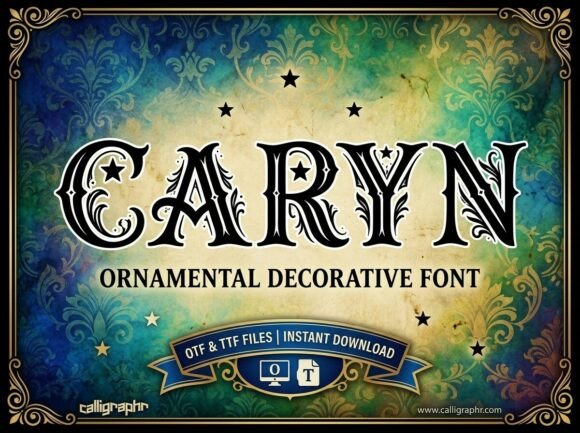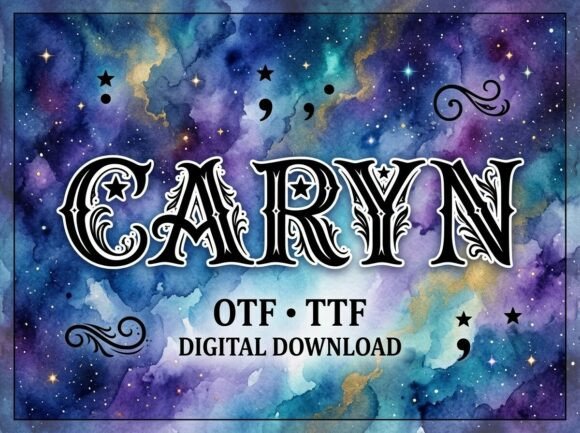
Introducing Caryn Font: A Stunning Decorative Display Font
Are you tired of using the same old fonts for your designs? Look no further than Caryn Font, a unique and artistic display font that’s sure to turn heads. This font is designed to be the center of attention, featuring bold and eye-catching elements that will elevate your designs to the next level.
A Font with a Strong Visual Personality
Caryn Font is a decorative display font that boasts a strong visual personality. Its unique artistic elements make it perfect for creators who want to break away from the ordinary and add a touch of elegance to their designs. Whether you’re working on bold headlines, artistic logos, or creative packaging, this font is versatile enough to deliver a professional and polished finish.
Caryn Font is perfect for designers and crafters who want to add a touch of sophistication to their work. Whether you’re creating:
- Logos: Use Caryn Font to create stunning logos that will set your brand apart from the competition.
- Headlines: Make a bold statement with Caryn Font’s unique and eye-catching headlines.
- Packaging: Add a touch of elegance to your packaging designs with Caryn Font’s sophisticated and polished finish.
- Social Media Graphics: Use Caryn Font to create stunning social media graphics that will grab attention and drive engagement.
Why Choose Caryn Font?
So why choose Caryn Font over other fonts on the market? Here are just a few reasons:
- Unique Design: Caryn Font features a unique and artistic design that’s sure to turn heads.
- Versatility: This font is versatile enough to be used for a wide range of design projects, from logos and headlines to packaging and social media graphics.
- Professional Finish: Caryn Font delivers a professional and polished finish that’s perfect for designers and crafters who want to create high-quality designs.
Tips for Using Caryn Font
Here are a few tips for using Caryn Font in your designs:
- Use it sparingly: Because Caryn Font is a decorative display font, it’s best to use it sparingly to avoid overwhelming your design.
- Pair it with a simple font: Pair Caryn Font with a simple font to create contrast and add visual interest to your design.
- Experiment with colors: Don’t be afraid to experiment with different colors and textures to add depth and interest to your design.
Caryn Font is a stunning decorative display font that’s perfect for designers and crafters who want to add a touch of sophistication to their work. With its unique artistic elements and strong visual personality, this font is sure to turn heads. Whether you’re creating logos, headlines, packaging, or social media graphics, Caryn Font is a versatile and professional choice that’s sure to deliver.